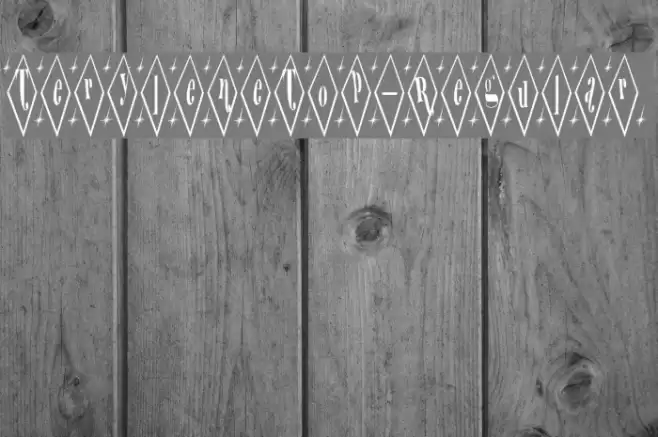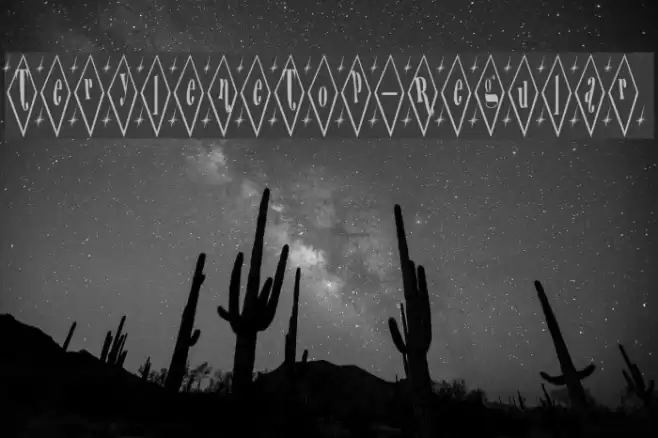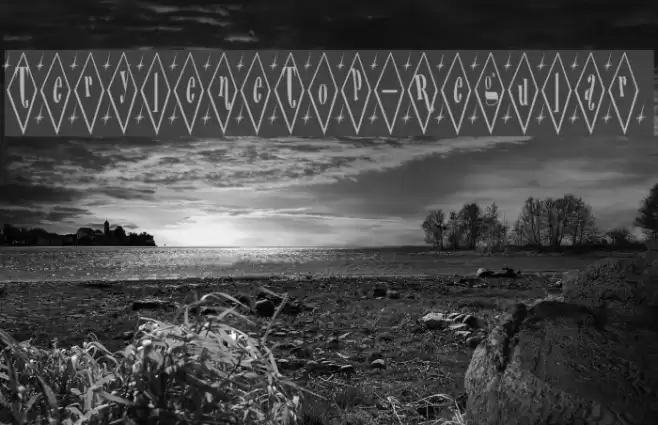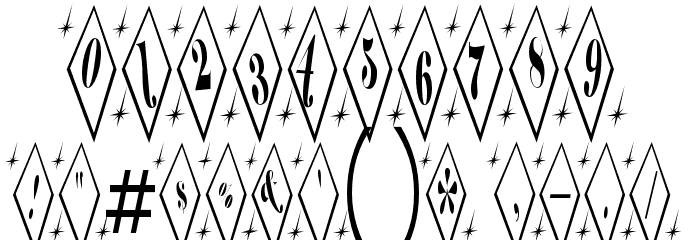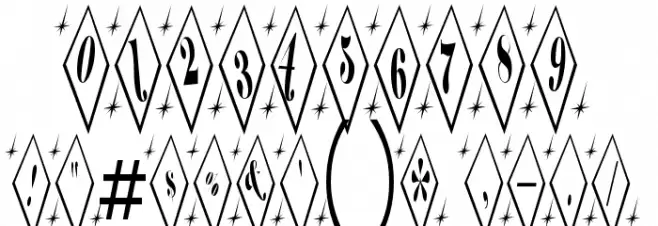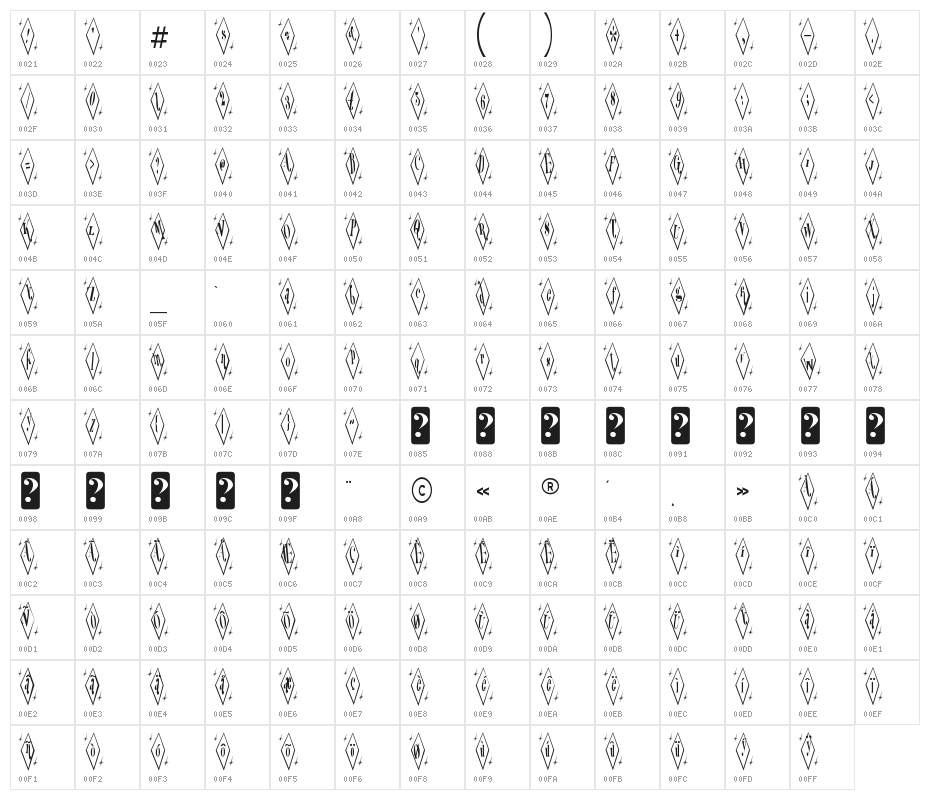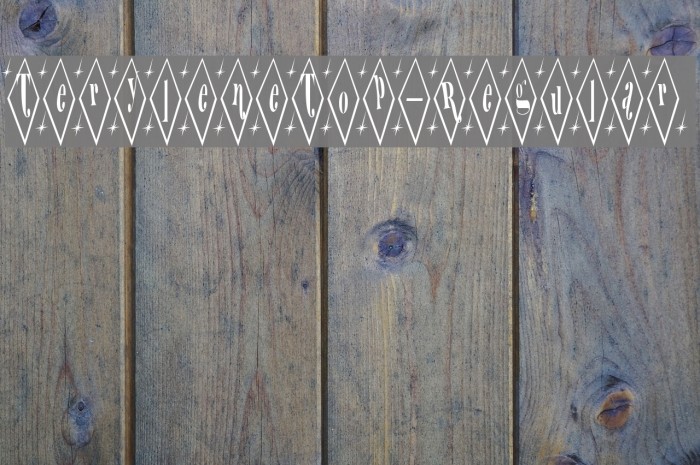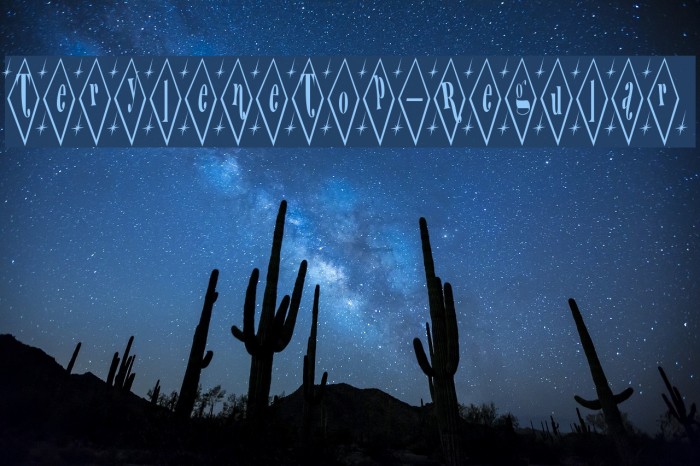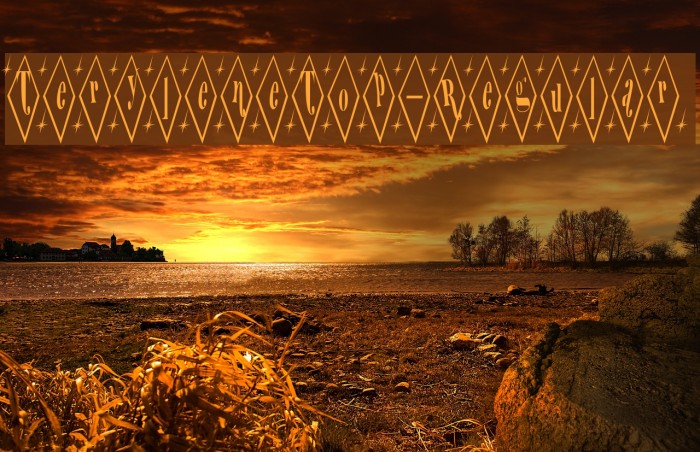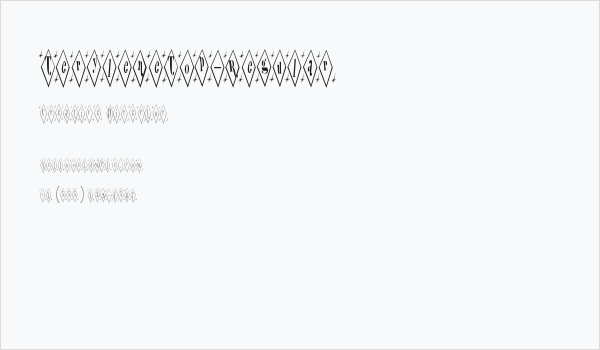
TeryleneTop-Regular Font
TeryleneTop-Regular Description
This font features a unique and decorative style with each character enclosed in a diamond shape, adorned with star-like embellishments. The uppercase letters are bold and angular, while the lowercase letters maintain a consistent style with slight variations in stroke width. The numbers and special characters follow the same decorative theme, making this font highly distinctive and eye-catching. The overall design is reminiscent of vintage or retro aesthetics, with a playful yet sophisticated flair. The font's intricate details and geometric shapes make it suitable for creative and artistic projects.
A decorative font with diamond-shaped enclosures and star embellishments, offering a vintage and artistic style from Uncategorized fonts.
- Proposed Projects: Ideal for artistic posters, vintage-themed designs, creative branding, and decorative invitations.
- Overall Style: Vintage, Decorative
- Use Case: Logos, Posters, Invitations